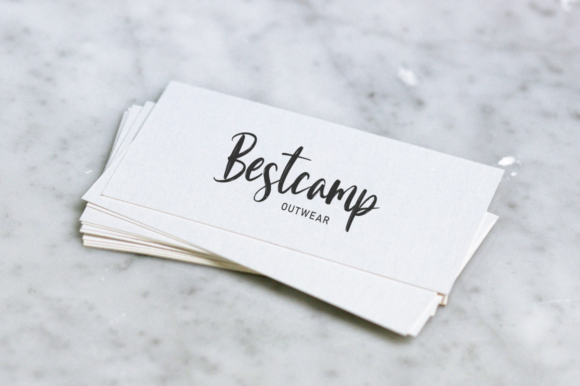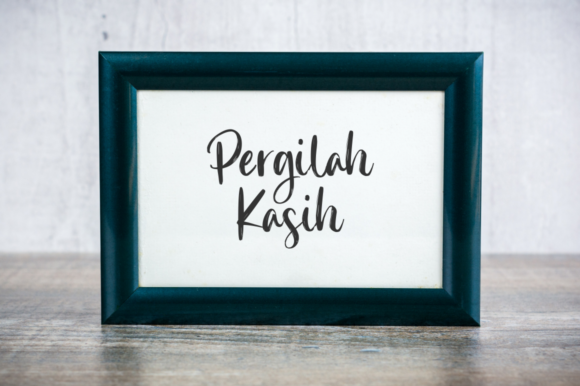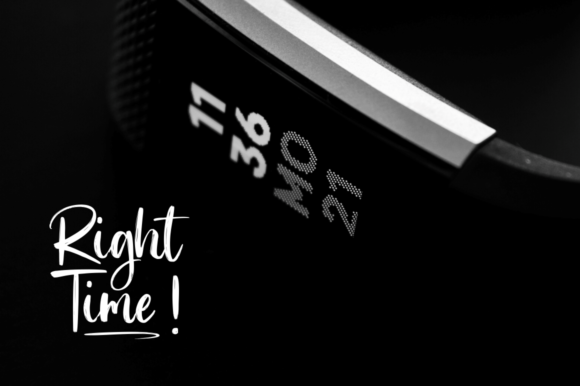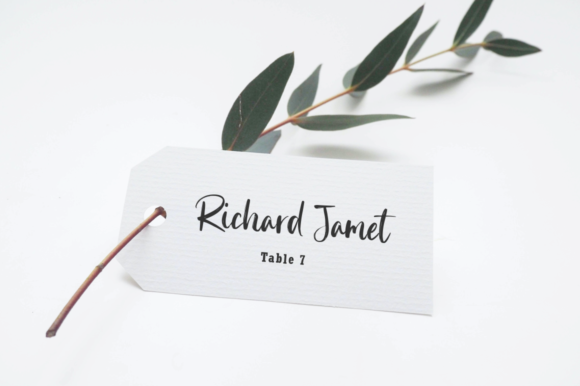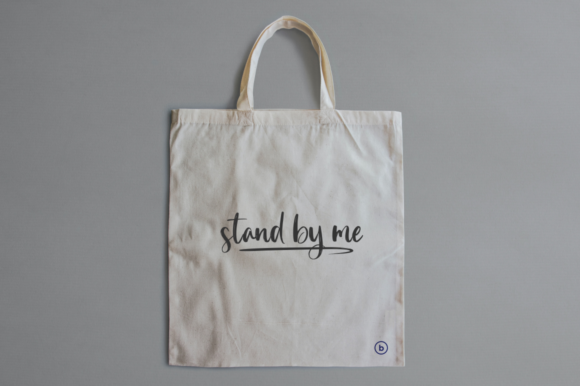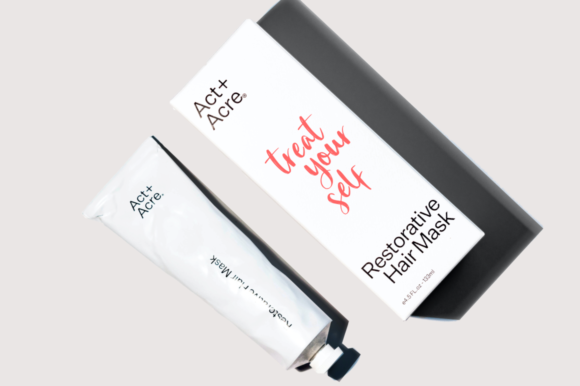
Introduction to Romland Font
Remember that moment when you stumbled upon the perfect font for your design project? The one that made your creative vision come alive and left everyone in awe? For designers, finding that elusive font can be a game-changer. It’s the difference between a decent design and a truly remarkable one.
Enter the Romland Font, a high-quality, free download that’s about to become your new design BFF. This flexible brushed handwritten font is designed to add a touch of elegance to your creative projects, from logos to social media graphics and beyond. With its balanced and varied strokes, the Romland Font is perfect for designers who crave a unique look without sacrificing readability.
Key Features of Romland Font
- Unique, hand-drawn style with a transparent background, allowing for easy customization and versatility.
- Perfect for use in graphic design, logo creation, and typography-based projects, where a distinctive and elegant look is required.
- Includes a comprehensive character set, covering a wide range of languages and characters, making it a valuable resource for designers worldwide.
Honest Review: Romland Font
As a designer, I’m always on the lookout for high-quality design resources that can elevate my creative projects. The Romland Font is one such find that I’d like to share with you.
What works well about the Romland Font is its versatility and legibility. The font’s clean lines and modern aesthetic make it perfect for a variety of design applications, from digital interfaces to print materials. I particularly appreciate the fact that it comes with a transparent background, which makes it easy to integrate into my designs.
- ✨ Versatile and legible, suitable for various design applications
- ✨ Transparent background for easy integration into designs
Tips for Getting the Most Out of Romland Font
Experiment with different font sizes and styles to create a unique look for your project.
Combine the Romland Font with other design elements to add depth and visual interest.
The Romland Font is perfect for:
Graphic design projects, such as posters and flyers.
Branding and logo design.
Web design and development projects.
Comparison to Romland Font: While Romland Font has a more playful, handwritten feel, Great Vibes Font is more refined and sophisticated, making it a great choice for projects that require a more professional look.